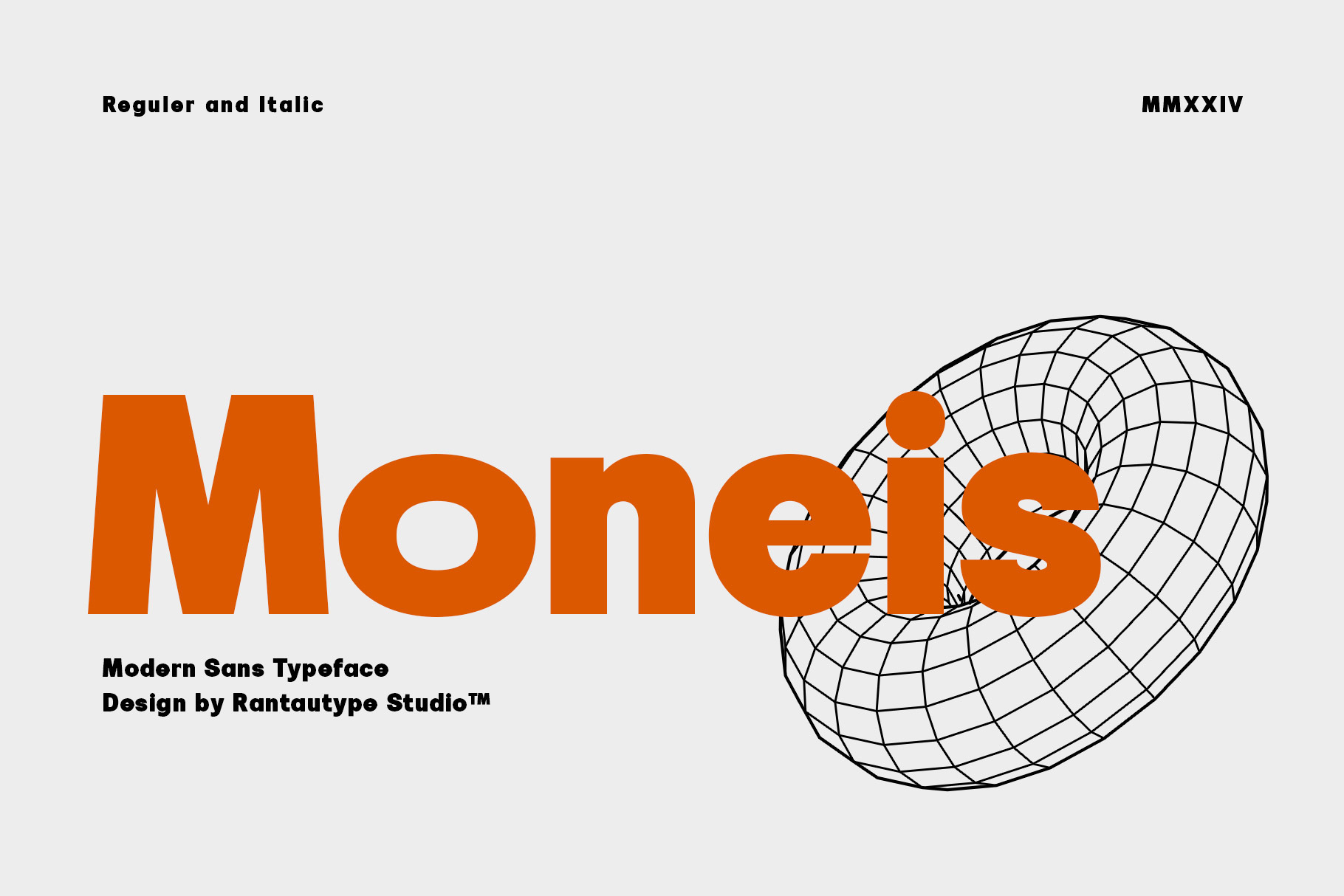
Moneis Modern Sans Typeface
Moneis is designed to modern grotesque with geometric details and deep in industrial design principles. Mones come with alternate, ligature and multilinggual character give it greater versatility allowing it to adapt to various contexts.
Moneis is a perfectly choice for any creative endeavor, chic, lifestyle design such as logos, advertisements, watermark on photography, stationery, branding project, display and magazine, invitation, corporate brand, product design, label, business project and many other project with elegant touch.